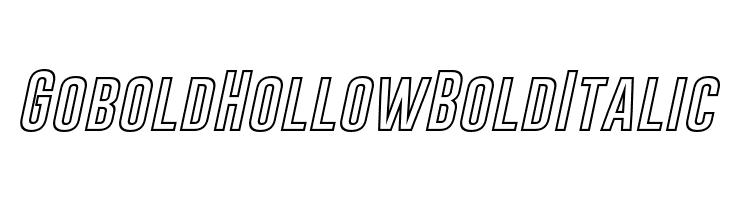
A bold, hollow, italic font with a modern and dynamic style.
Bold, hollow, italic font with a modern and dynamic style.
A bold, hollow, italic font with a modern and dynamic style.